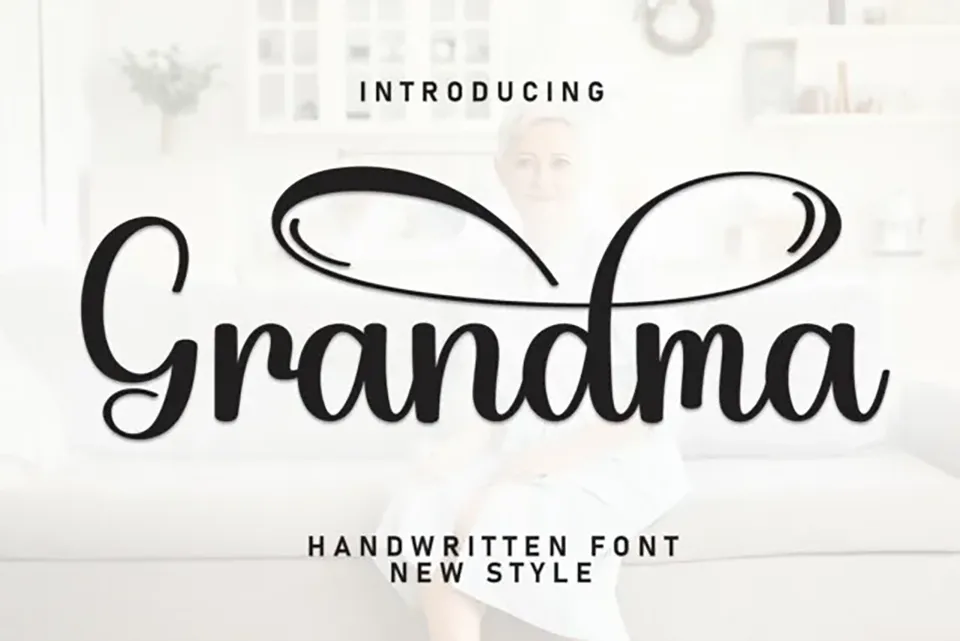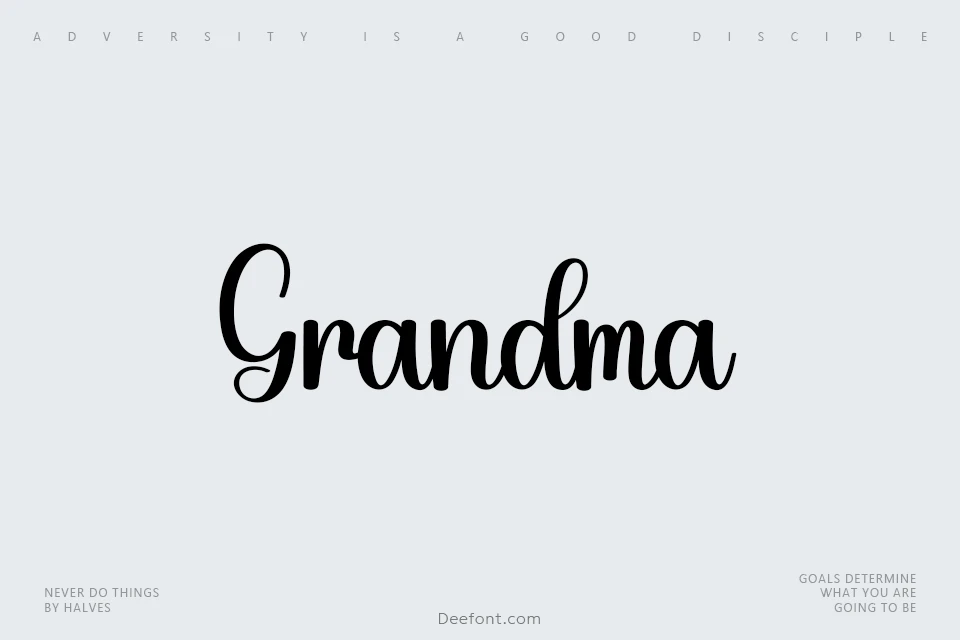
Grandma Script Font
Grandma Script Font is a charming handwritten typeface. This font features elegant, flowing letterforms designed to capture the warmth and personality of classic handwriting. With its smooth connections and graceful curves, Grandma Script adds a personal and nostalgic touch to any project. It’s well-suited for creating heartfelt invitations, distinctive logos, memorable quotes, branding materials, and other designs seeking a touch of handcrafted elegance. Grandma Script brings a sense of familiarity and sophistication, making your text feel both approachable and refined.